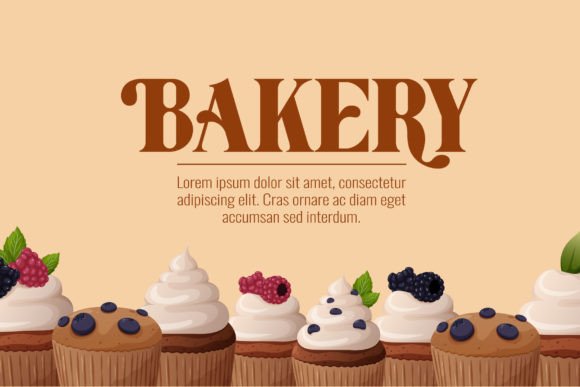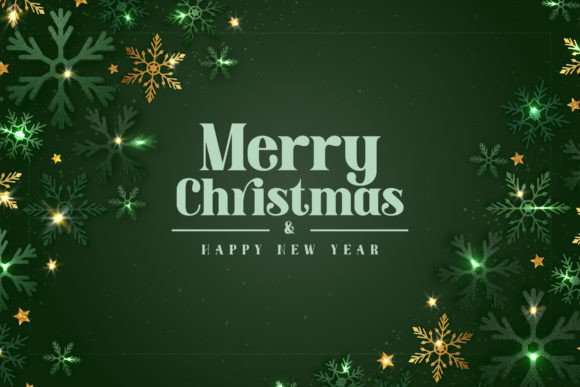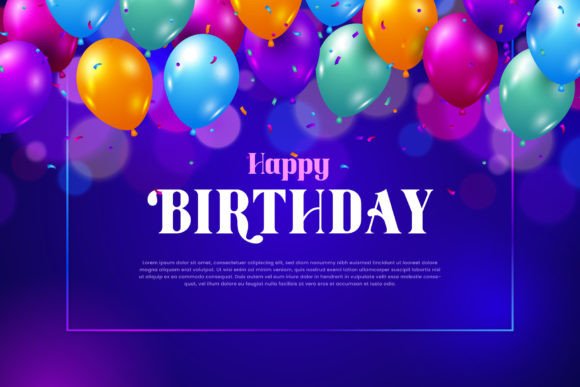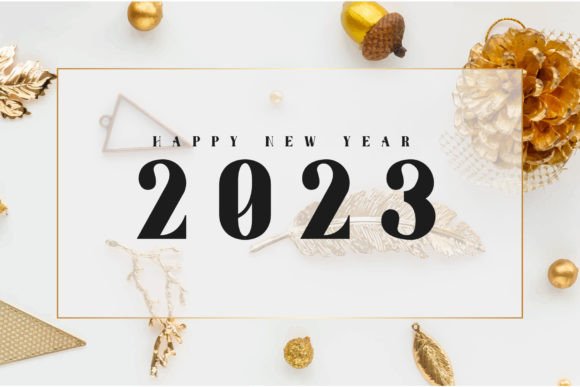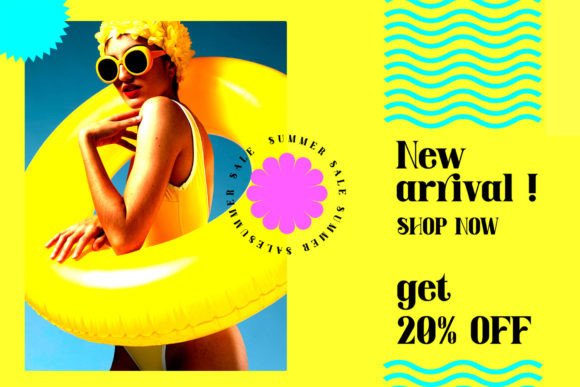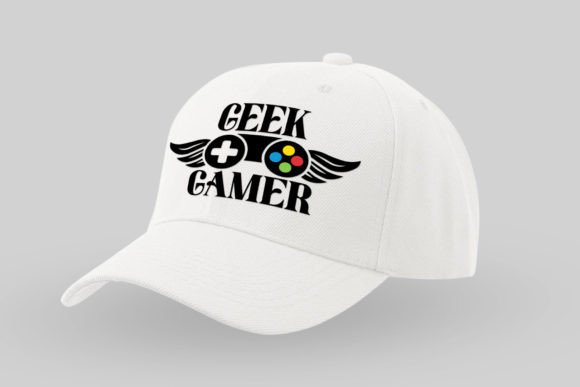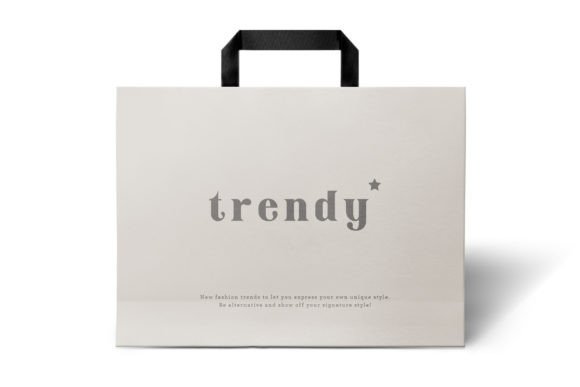
Bridge Font
About Bridge Font
BRIDGE FONT SPECIMEN
Bridge Font is designed to be versatile. Compatible with both modern and vintage design styles. You can use it for various projects, such as blog posts, logos, branding, ads, invitations, greeting cards, planners, photo albums, decorations, and much more.